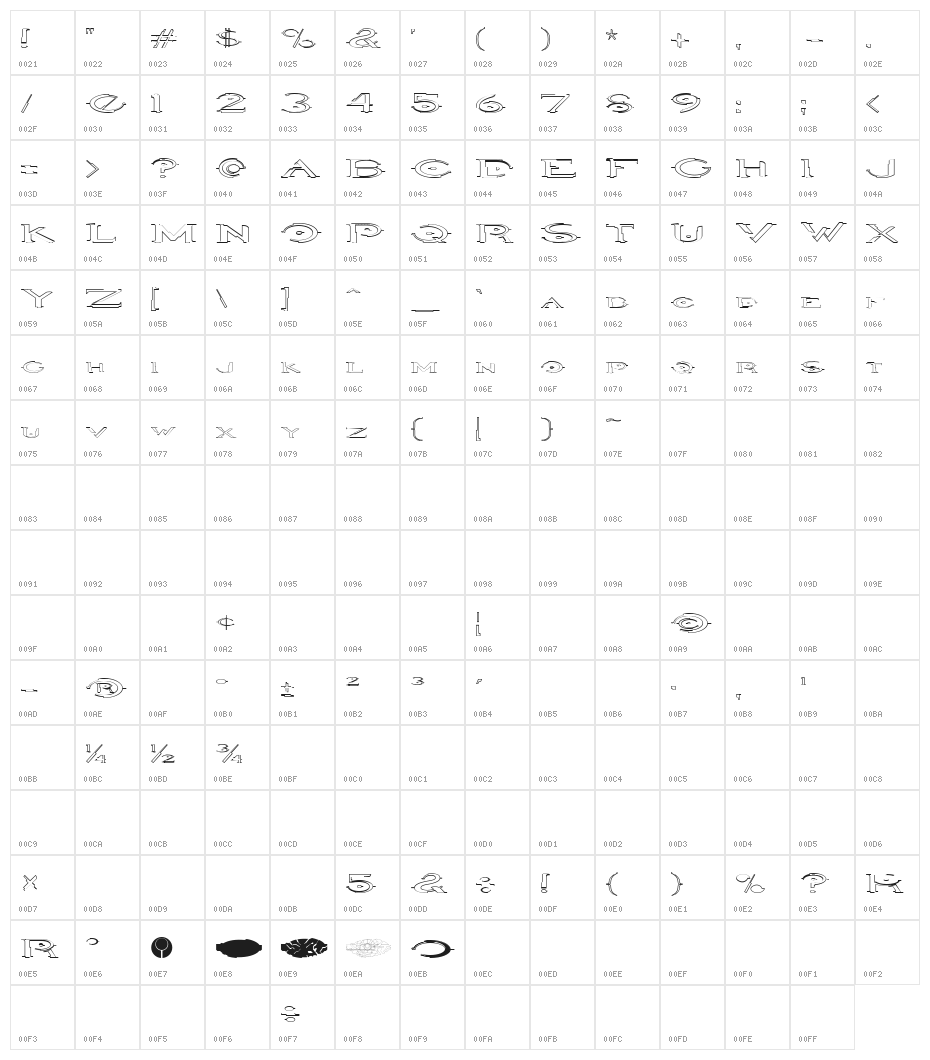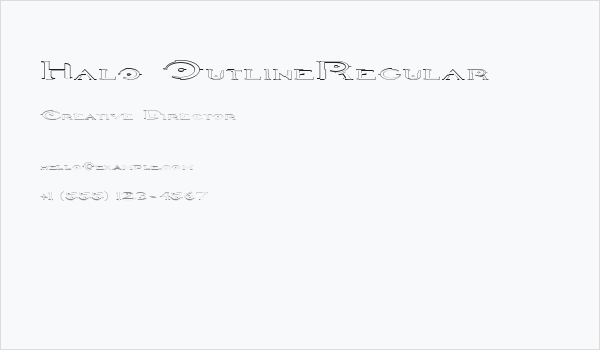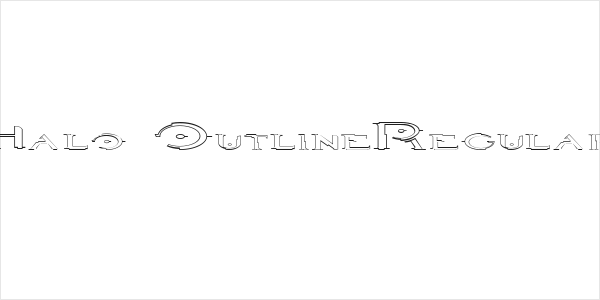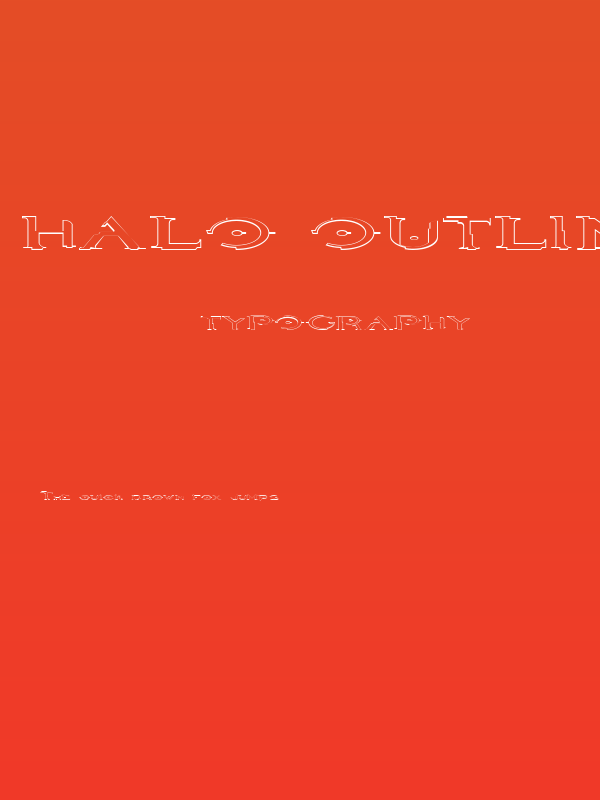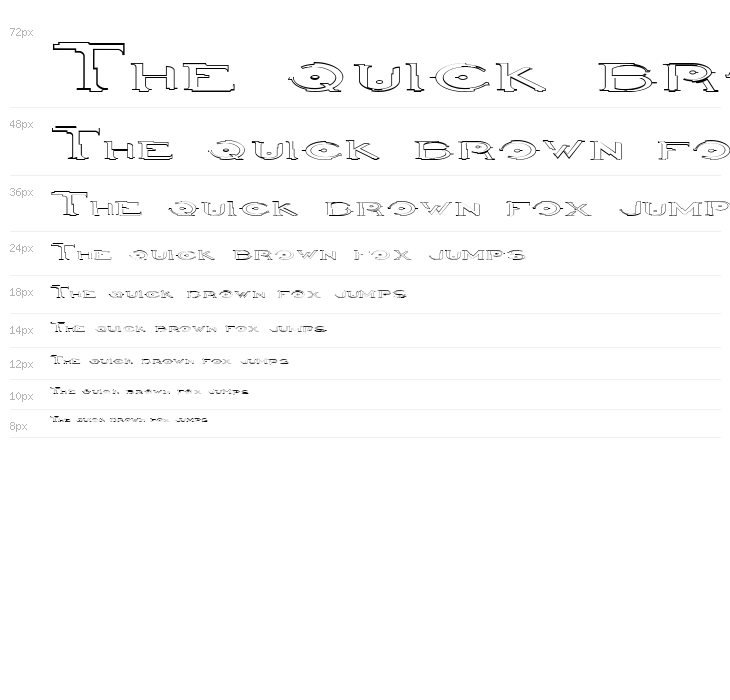
Halo OutlineRegular Font
Halo OutlineRegular Description
This font features a unique outline style that gives it a futuristic and modern appearance. The characters are designed with a hollow interior, creating a striking visual effect that stands out. The uppercase and lowercase letters maintain a consistent geometric structure, with sharp angles and clean lines. The numbers and special characters follow the same design principles, ensuring uniformity across all glyphs. This font is ideal for projects that require a bold and eye-catching display, such as posters, logos, and digital media. Its distinct style makes it suitable for creative and innovative designs.